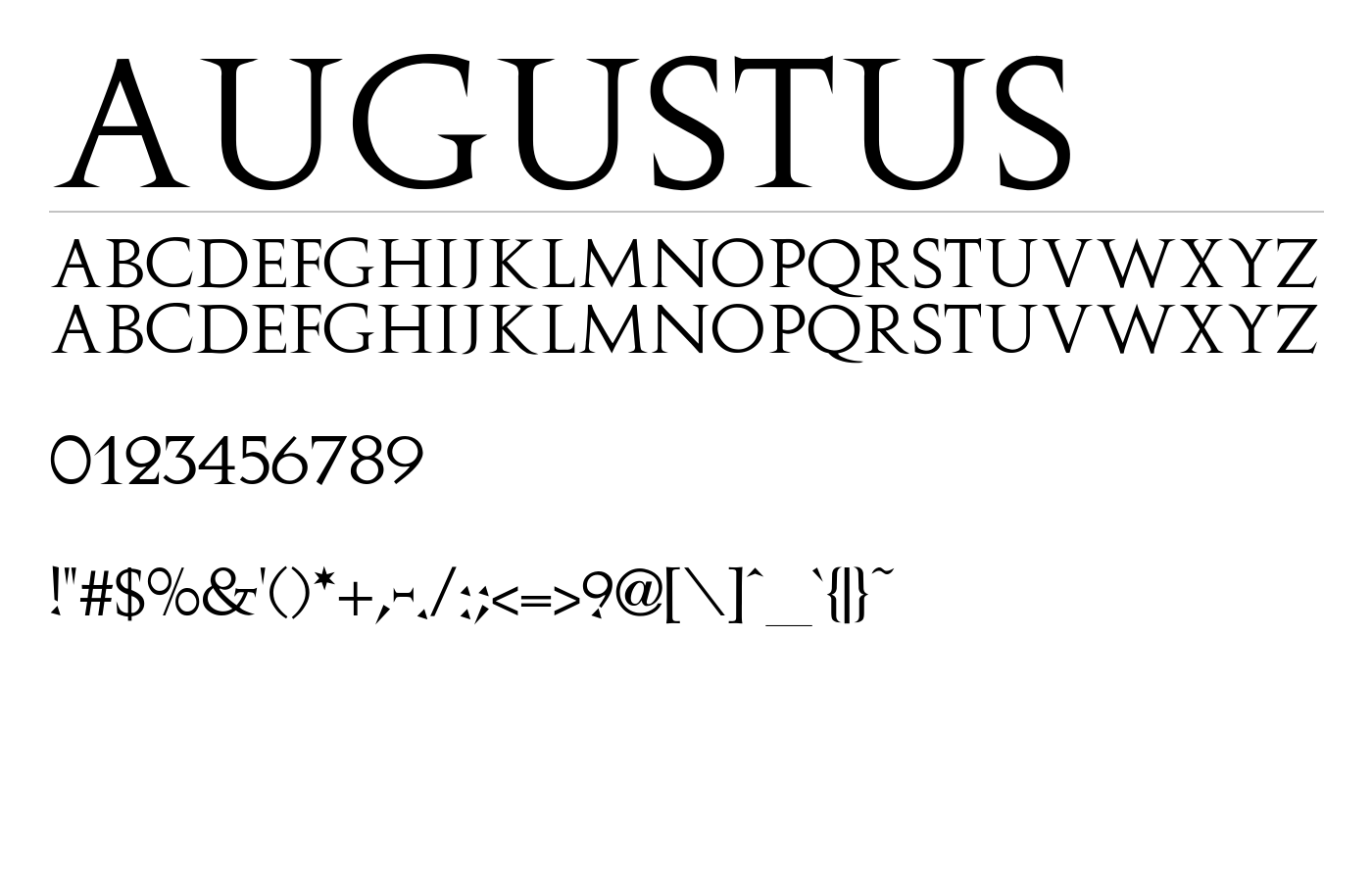
Augustus is an elegant serif font with a classic Roman influence, featuring sharp, thin serifs and high contrast between thick and thin strokes. Its tall, narrow letterforms and refined details give it a sophisticated and timeless feel, ideal for luxury branding, formal invitations, and editorial headlines where a touch of tradition and class is desired. This font works best in large sizes, making a strong statement in logos and prestigious print materials.
Augustus Font